Inclusive Fonts for Dyslexia & Color Blindness
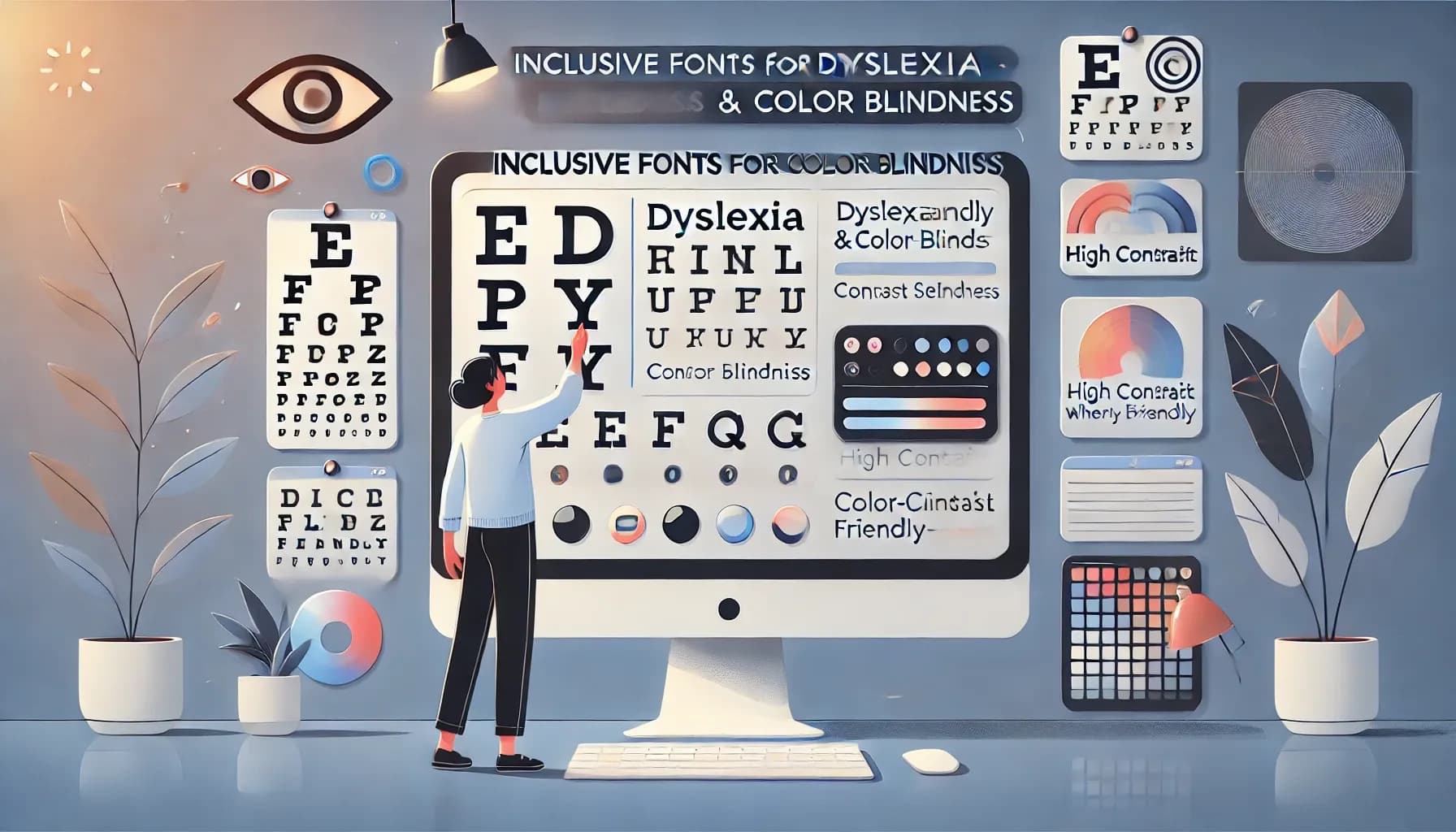
TL;DR:
Not everyone sees or reads the same way. For some, words shift and dance on the page. For others, colors blur together, making it hard to tell red from green. The good news? A few small changes—like using fonts designed for dyslexia and choosing better color contrast—can make reading easier for millions of people. And when we make things accessible, we make the web better for everyone.
Imagine this: You’re trying to read a text message on your phone, but the sun’s so bright you can barely see the screen. Or you’re at a fancy restaurant, staring at a menu in an elegant, curly font, wondering if you just ordered "grilled salmon" or "chilled melon."
Now imagine that’s your daily reality, every time you open a book, an email, or a website.
For millions of people with dyslexia or color blindness, reading online isn’t just inconvenient—it’s frustrating, exhausting, and sometimes impossible. But the best part? We can fix that.
Dyslexia isn’t about intelligence—it’s about how the brain processes words. It affects 5% to 17% of the population [source], meaning millions of people find reading harder than it needs to be.
For someone with dyslexia, reading might feel like: 🔸 Letters swapping places—like “b” and “d” looking identical. 🔸 Words that seem to move or jump across the page. 🔸 A struggle to track lines of text without losing their place.
It’s exhausting. But some fonts actually help.
Some fonts were designed with dyslexia in mind, and they can help make reading easier.
✔ OpenDyslexic – This font has heavier bottoms, which "anchor" letters to keep them from flipping around. ✔ Lexend – Scientifically designed to reduce visual stress and improve reading speed. ✔ Arial & Verdana – Not built specifically for dyslexia, but their clean, simple shapes make them easier to read than most decorative fonts.
Small Tweaks, Big Impact
✅ Use sans-serif fonts – Fancy, decorative fonts are harder to process. ✅ Give letters some breathing room – More space between words and lines makes reading smoother. ✅ Avoid ALL CAPS & italics – They distort letter shapes and slow down reading.
Color blindness doesn’t mean you see the world in black and white (that’s a myth). Instead, some colors blend together, making it hard to tell them apart. The most common types are:
🔹 Red-Green Color Blindness (Deuteranopia & Protanopia) – Affects up to 8% of men and 0.5% of women [source]. If you use red and green to show "correct" vs. "incorrect" answers? They might look exactly the same.
🔹 Blue-Yellow Color Blindness (Tritanopia) – Less common, but makes blues and yellows almost indistinguishable.
🔹 Complete Color Blindness (Achromatopsia) – Extremely rare, affecting 1 in 30,000 people [source], where everything is seen in shades of gray.
🚫 Red and green alone? Bad idea. 🚫 Blue and purple? Might as well be the same color. 🚫 Light gray text on a white background? Nearly invisible.
✅ Use high contrast – Dark text on a light background works best. ✅ Don’t rely on color alone – Use patterns, icons, or labels too. ✅ Test your design – Tools like Color Oracle or Webability’s Color Blindness Filter let you see your website how a color-blind user would.
OpenDyslexic and Lexend are great, but some dyslexic users also prefer simple, clean fonts like Arial or Verdana.
Not always, but the extra strokes on each letter can make words harder to distinguish.
Not directly, but good contrast and clear, readable fonts make text much easier to read.
Try tools like Color Oracle, Toptal’s Color Blindness Filter, or Chrome DevTools’ color vision simulator.
The Web Content Accessibility Guidelines (WCAG) recommend: ✅ 4.5:1 for normal text ✅ 3:1 for large text (18pt+ regular or 14pt+ bold)
Let’s be real—accessibility helps everyone.
It’s not just about being nice—it’s about good design.
So, whether you're building a website, writing a blog, or just picking a font for your next project, remember: your choices matter.
Let’s make the web a place where everyone can read, learn, and connect—without struggling.
Because good design should work for all of us. 🚀